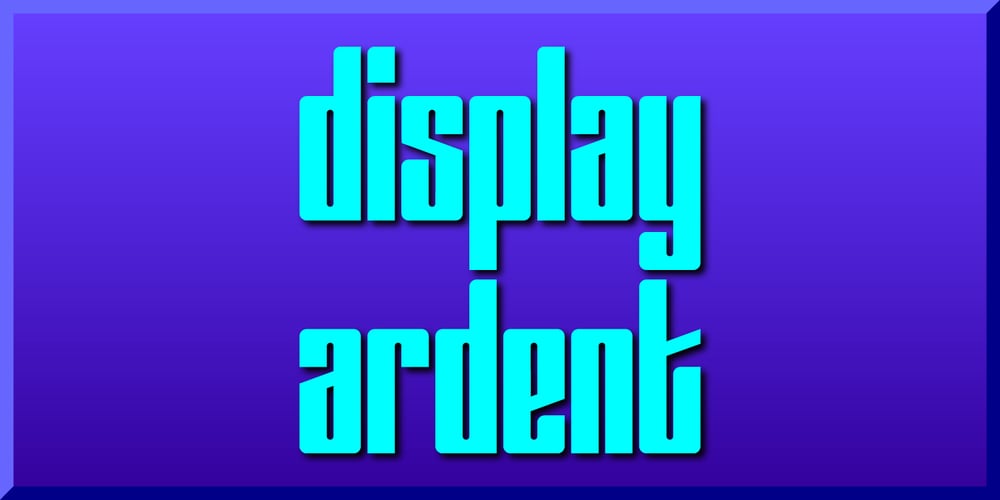
Display Ardent Font Family was designed by Gerald Gallo and published by Gerald Gallo. Display Ardent contains 1 styles and family package options. Display Ardent is a display font not intended for text use. It was designed specifically for display, headline, logotype, branding, and similar applications. Display Ardent has the lowercase alphabet only, there is no uppercase alphabet. For convenience, the lowercase alphabet characters were repeated in the shift set.